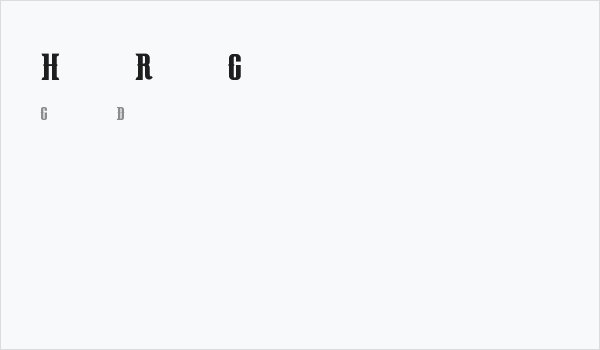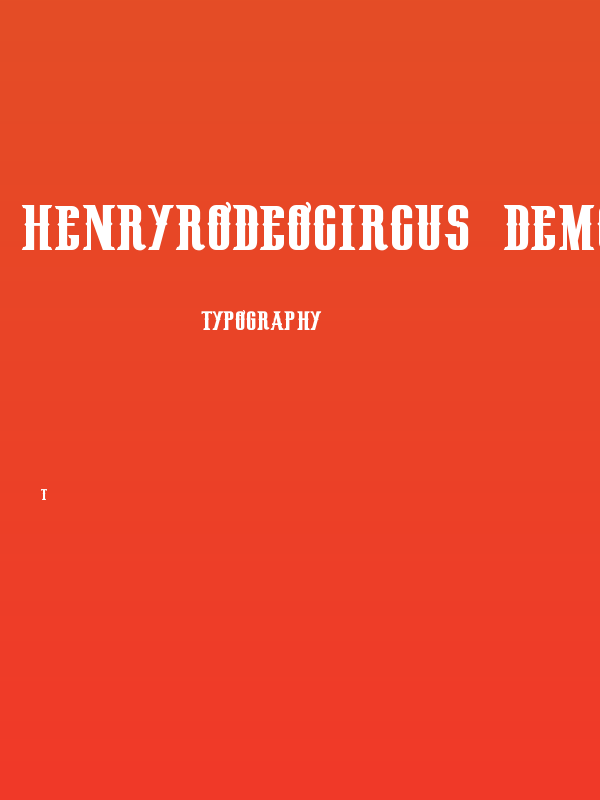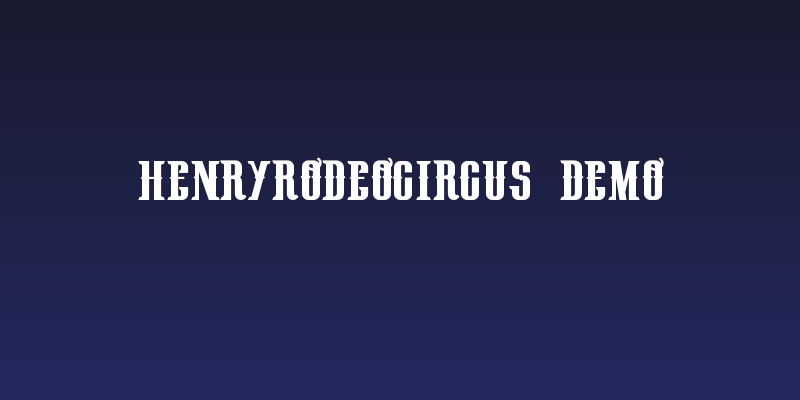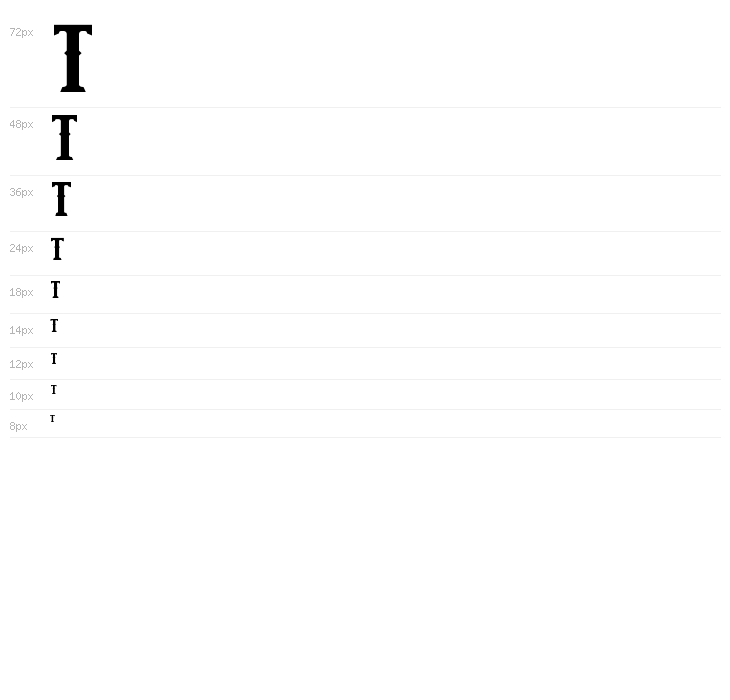
HenryRodeoCircus_demo Font
This font exudes a bold and adventurous spirit, reminiscent of vintage circus posters and wild west aesthetics. The characters are robust and heavily stylized, featuring thick strokes and decorative serifs that give each letter a distinct and eye-catching appearance. The uppercase letters are particularly striking, with unique embellishments that add to the font's overall charm. The design is consistent across all characters, maintaining a cohesive look that is both playful and authoritative. This font is perfect for creating a sense of nostalgia and excitement, making it ideal for projects that require a touch of whimsy and boldness.
| Proposed Projects | Ideal for posters, event flyers, branding for themed events, and any project needing a vintage or adventurous touch. |